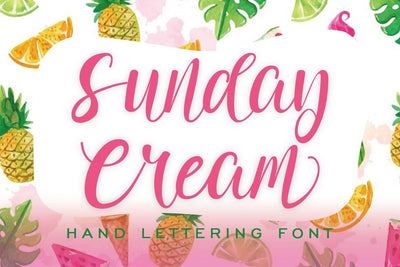
Sunday Cream Hand Lettering Font
Sunday cream is a Bounce Handwritten Font. Featuring a simple alternate character. This font good used for decorative design like Cafe name, Quote, Wedding Invitation, etc. I like to use this font for decorative design on Invitation and travel booklet.